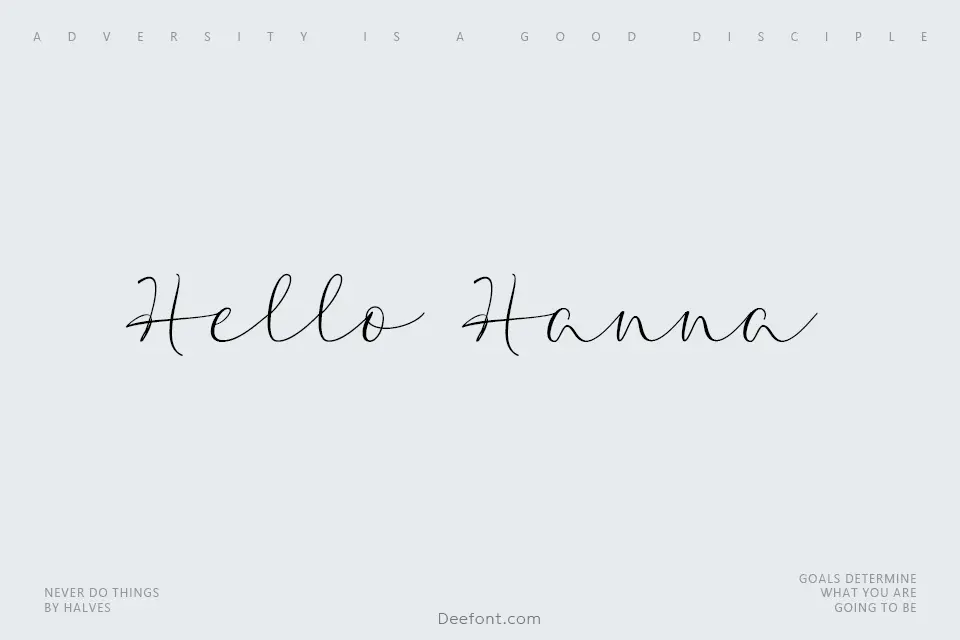
Hello Hanna Font
Hello Hanna Font is a delightful and effortless handwritten script designed by Canoute Creative. Featuring distinctively organic strokes and a playful yet elegant vibe, this typeface is an excellent choice for wedding invitations, personalized branding, and creative DIY projects. Its casual calligraphy style brings a warm, authentic touch to digital designs and modern stationery.